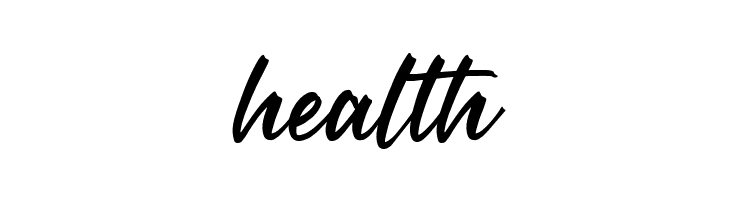
A bold, expressive script font with a dynamic, handwritten style.
A bold, expressive handwritten font with fluid, dynamic strokes and a brush-like texture.
A dynamic, cursive script font with an expressive, italic style.
A charming and elegant script font with flowing, cursive letterforms.
A sophisticated cursive script with elegant, flowing strokes.
A dynamic and expressive handwritten font with fluid strokes and playful curves.
A dynamic, cursive script font with fluid, connected letters and a handwritten style.
A playful and elegant script font with fluid, connected strokes.
A flowing, elegant script font with smooth, cursive strokes.
A bold, expressive script font with flowing, interconnected characters.